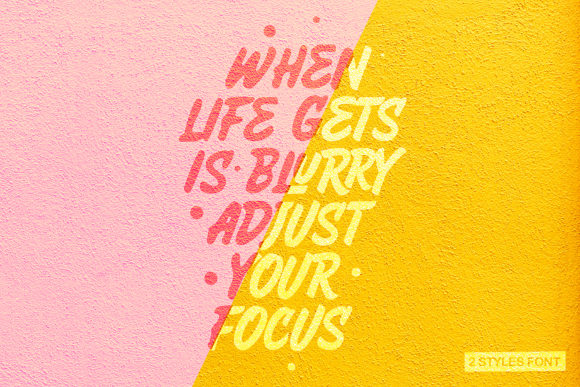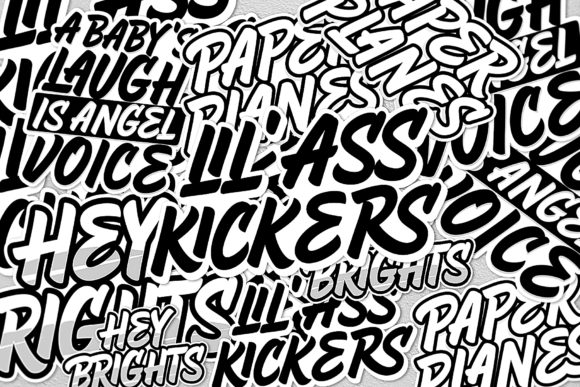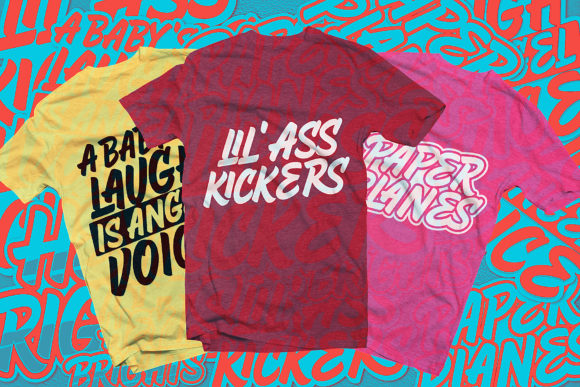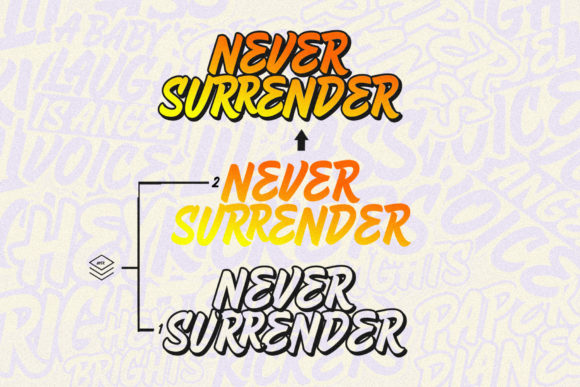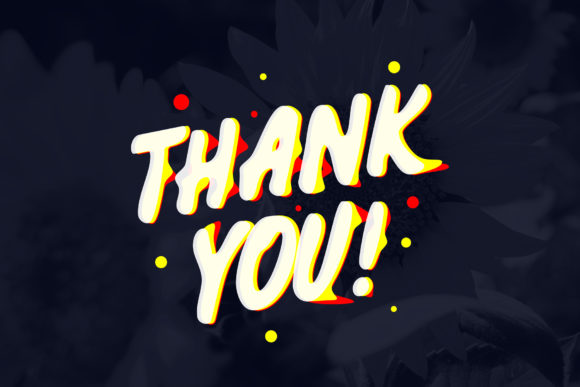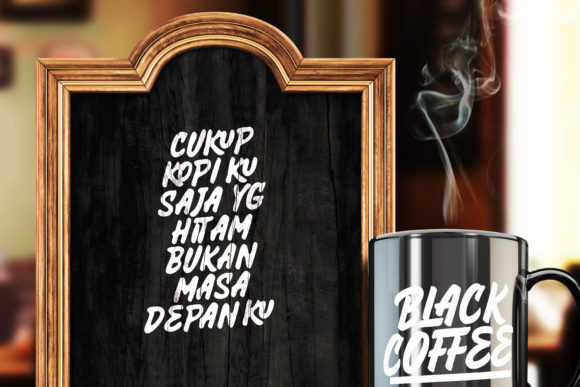
Introduction to Hey Brights Font
Have you ever stared at a blank canvas, eager to bring your creative vision to life, only to be held back by the perfect font? For designers, finding the right typography can be the difference between a project that pops and one that falls flat. That’s where the Hey Brights Font comes in – a game-changing all-caps display font that’s as versatile as it is stylish.
With its casual, yet high-quality design, the Hey Brights Font is the perfect resource for designers looking to add some personality to their creative projects. Whether you’re working on a social media campaign, a logo, or a website, this font is sure to bring a touch of modern charm to your design. Plus, with a transparent background, you can easily place it over any image or background, giving you endless possibilities for customization.
Key Features of Hey Brights Font
- Unique, hand-drawn design with a playful and modern aesthetic, making it perfect for creative projects.
- Transparent background, allowing for seamless integration into various design elements and backgrounds.
- Comes in a single font file, with 6 styles (Thin, Light, Regular, Medium, Bold, and Black), providing a wide range of options for creative expression.
- Designed to be highly legible, even at small font sizes, making it ideal for use in various design applications, from headings to body text.
Honest Review: Hey Brights Font
As a designer, I’m always on the lookout for high-quality design resources to elevate my creative projects. The Hey Brights Font caught my attention with its vibrant and playful style, making it perfect for any project that needs a pop of color.
Here are some things that work well with the Hey Brights Font:
- ✨ Unique and eye-catching design, perfect for making a statement
- ✨ Easy to read, even at small font sizes
- ⚠️ Limited font combinations available, making it less versatile than other font options
- ⚠️ May not be suitable for formal or professional projects, due to its playful nature
Overall, I’m impressed with the Hey Brights Font. It’s a great addition to any design resource library, and its unique style makes it perfect for creative projects. While it may have some limitations, its benefits far outweigh its drawbacks, making it a must-have for any designer looking to add some excitement to their work.
Tips for Getting the Most Out of Hey Brights Font
To get the most out of Hey Brights Font, experiment with different font sizes, colors, and combinations. You can also use it in conjunction with other design elements to create unique and eye-catching designs.
Hey Brights Font is perfect for a variety of creative projects, including social media graphics, flyers, posters, and business cards. Its high-quality design and transparent background make it a great choice for designers and non-designers alike.